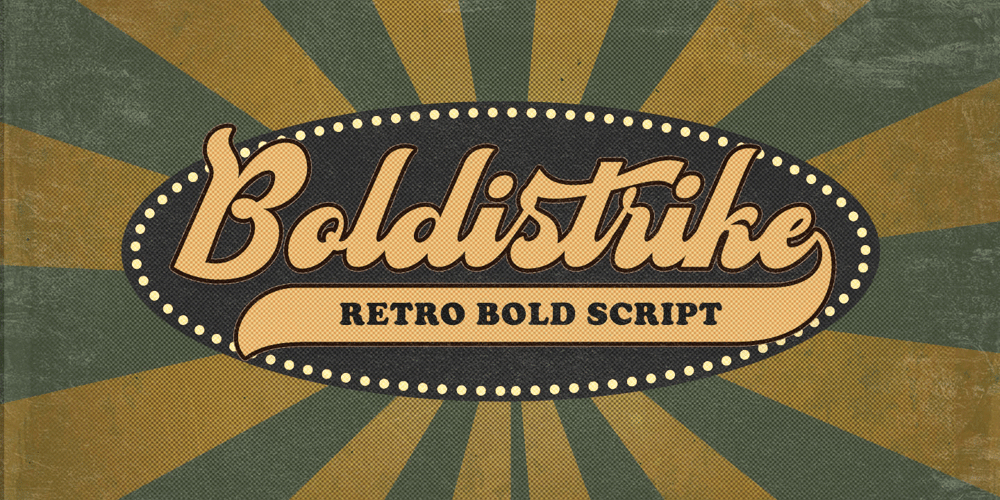
Boldistrike
Boldistrike Font Family was designed by Hendry Juanda and published by Letterhend. Boldistrike contains 1 styles and family package options. Boldstrike is a retro bold script which will bring you back to 60s feel. The bold letterform with swash makes this typeface looks standout to be used for your retro theme project. This font perfectly made to be applied especially in logo, and the other various formal forms such as invitations, labels, logos, magazines, books, greeting / wedding cards, packaging, fashion, make up, stationery, novels, labels or any type of advertising purpose.Features : uppercase & lowercase numbers and punctuation multilingual ligatures alternates swashes PUA encoded We highly recommend using a program that supports OpenType features and Glyphs panels like many of Adobe apps and Corel Draw, so you can see and access all Glyph variations. For accessing opentype feature, kindly check this link letterhend.com/tutorials/using-opentype-feature-in-any-software/